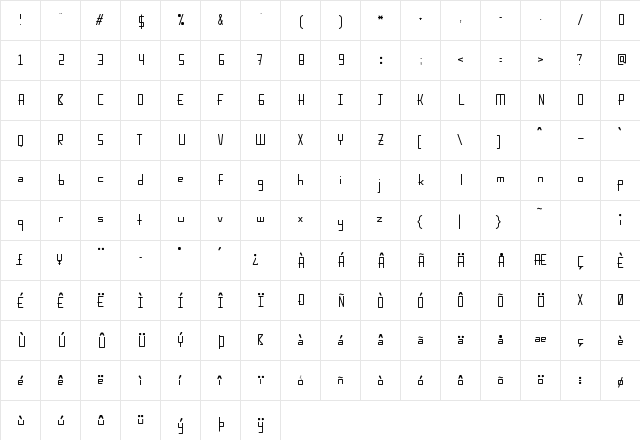
KarpowThin Regular
| Foundry | xerographer.com |
| Designer | Max Infeld |
Design Context for KarpowThin Typeface
KarpowThin offers clean, dependable letterforms without strong stylistic allegiance, making it a practical choice for designers who need flexibility. Its slender proportions lend an understated elegance to any composition.